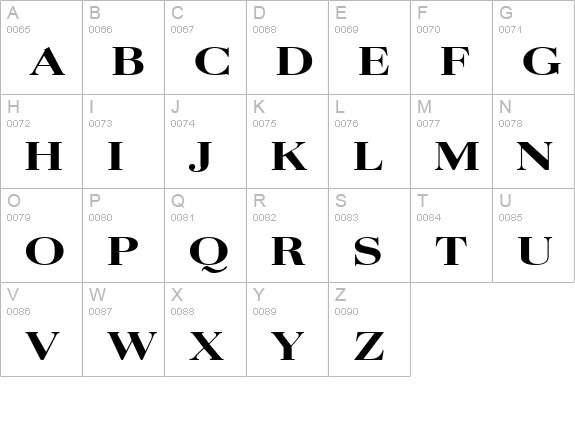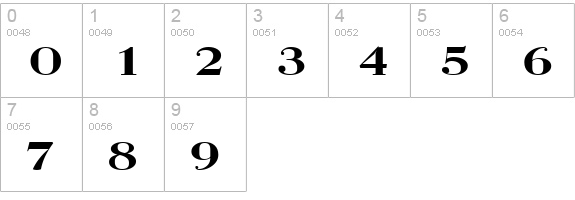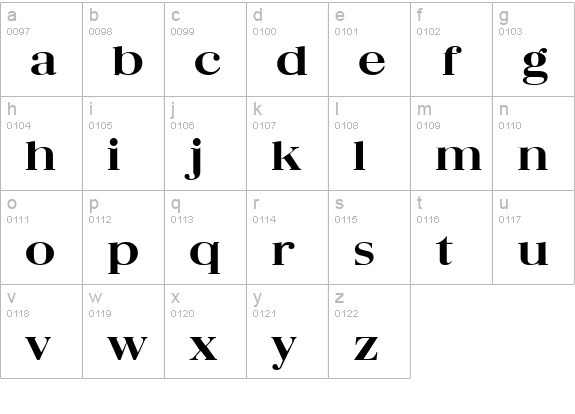
Quantas Broad Extrabold Regular is an extra-heavy, attention-grabbing variant in the Quantas typeface family \xE2\x80\x94 well suited to high-impact headlines, posters, and bold branding.
Introducing Quantas Broad Extrabold Regular, a stunning font that effortlessly captures attention with its bold and impactful presence. With its wider letterforms and extra thickness, this font exudes confidence and commands attention in any design project. Quantas Broad Extrabold Regular is the perfect choice for those seeking a font that makes a powerful statement. Its strong and sturdy letterforms are meticulously crafted to ensure legibility and readability, even at smaller sizes. Whether used for headlines, posters, branding, or any other creative endeavor, this font will grab the viewer's attention and leave a lasting impression. One of the best features of Quantas Broad Extrabold Regular is that it is freely available to download at FontsMarket.com. This means that designers and creatives can easily access and incorporate this incredible font into their projects without any cost. It's a fantastic opportunity to enhance your designs with a font that combines boldness and elegance seamlessly. With Quantas Broad Extrabold Regular, you have the freedom to experiment and explore various design possibilities. Its versatility allows it to work well in both digital and print media, ensuring that your message will be communicated effectively across different platforms. Make a bold statement with Quantas Broad Extrabold Regular and elevate your designs to new heights. Download this remarkable font for free at FontsMarket.com and experience the power of its strong and impactful presence.